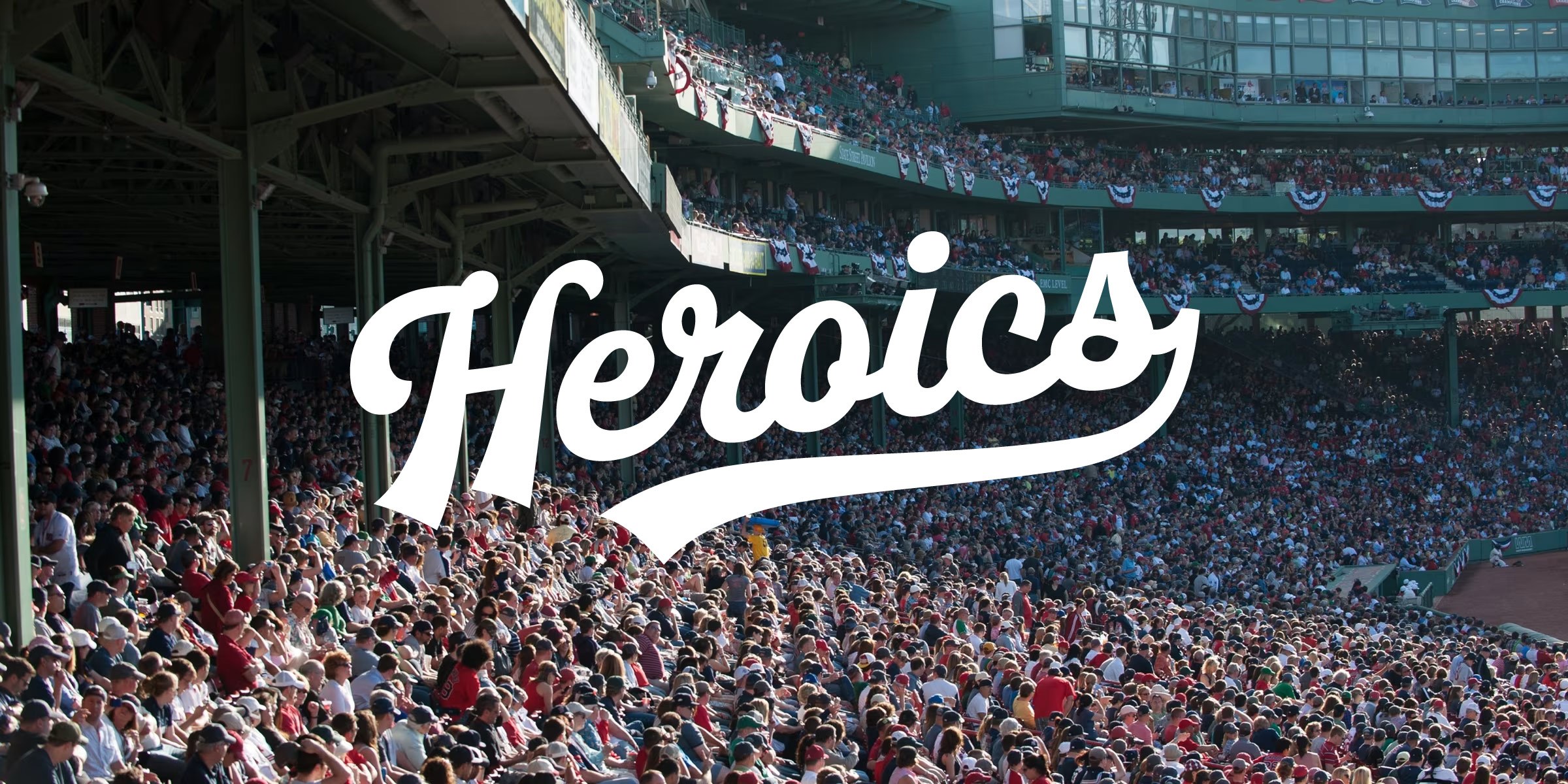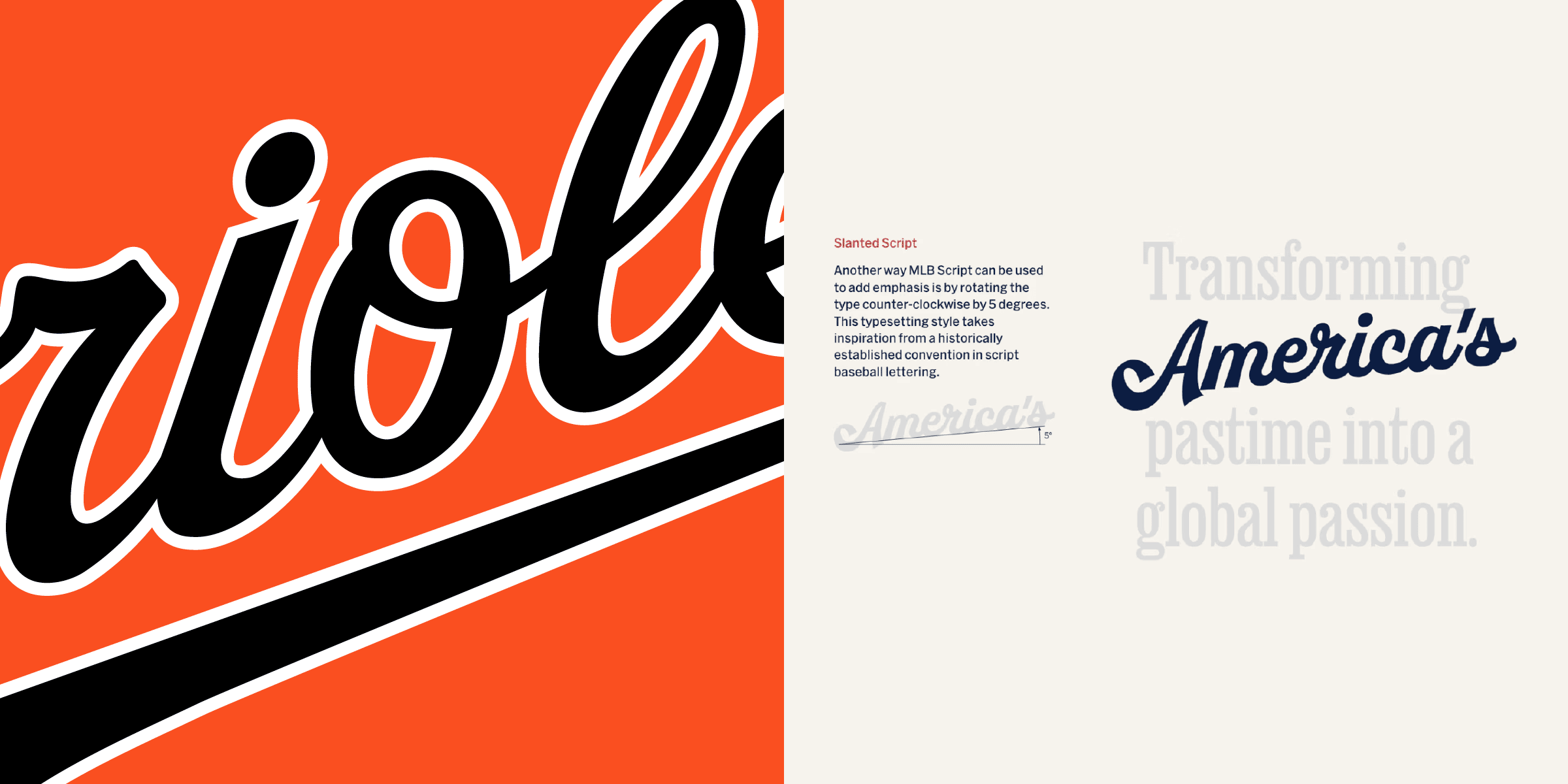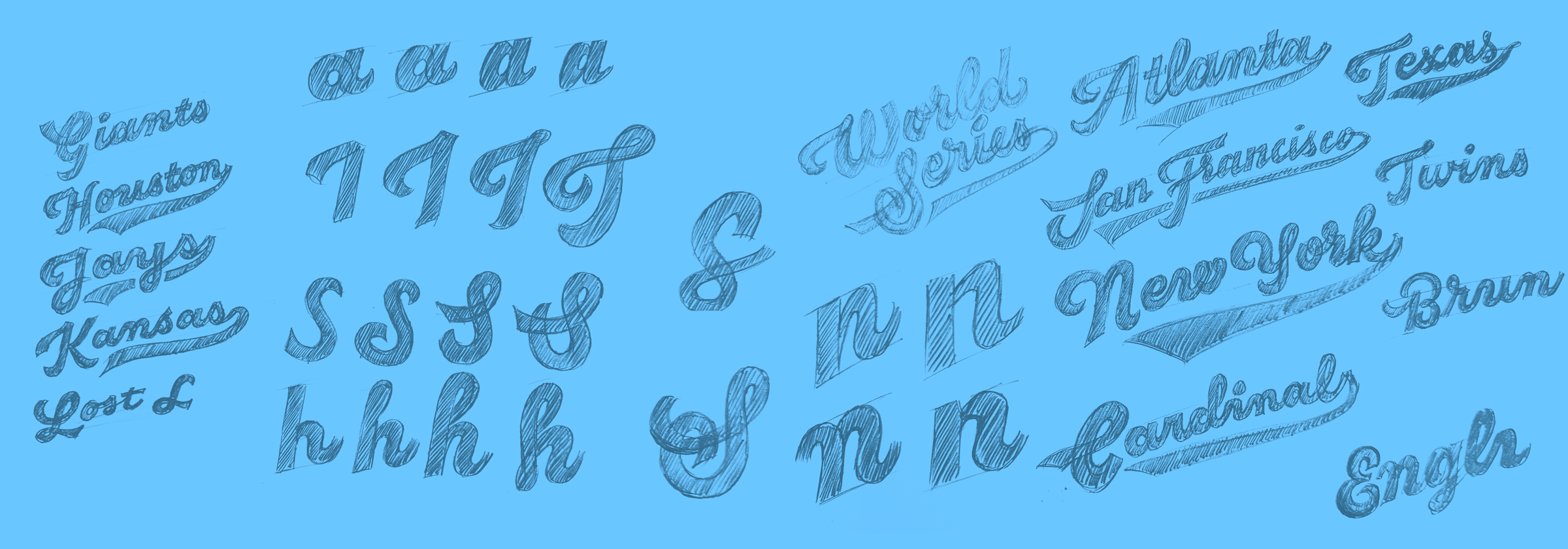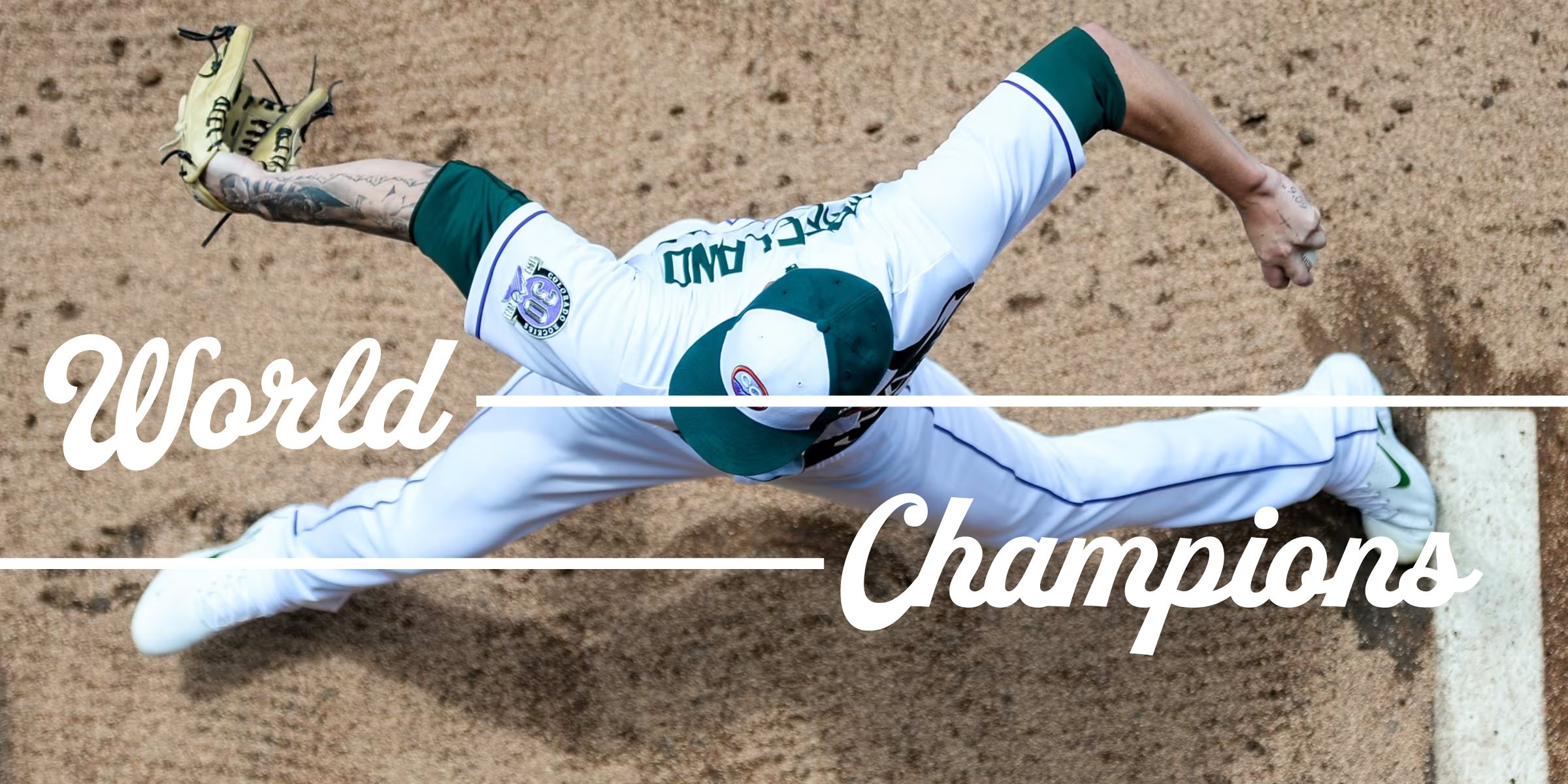
Major League Baseball Script
Mother Design reached out to have us contribute a classic baseball script to a wonderful type palette featuring retail and custom fonts from many of our esteemed peers. While the rollout of this design work isn't entirely complete, we remain thrilled to collaborate with one of our favorite design studios and bring our passion for type design to America’s pastime.
MLB Script Sketches
First round sketches.
MLB Script early directions
Early directions.
MLB Script Characterset
A small snippet of the characterset.
MLB Script Heroics
Setting with underline feature.
MLB Script Incline
MLB Script Incline copy
MLB Script Family
The rest of the type palette.
MLB Script World Champions